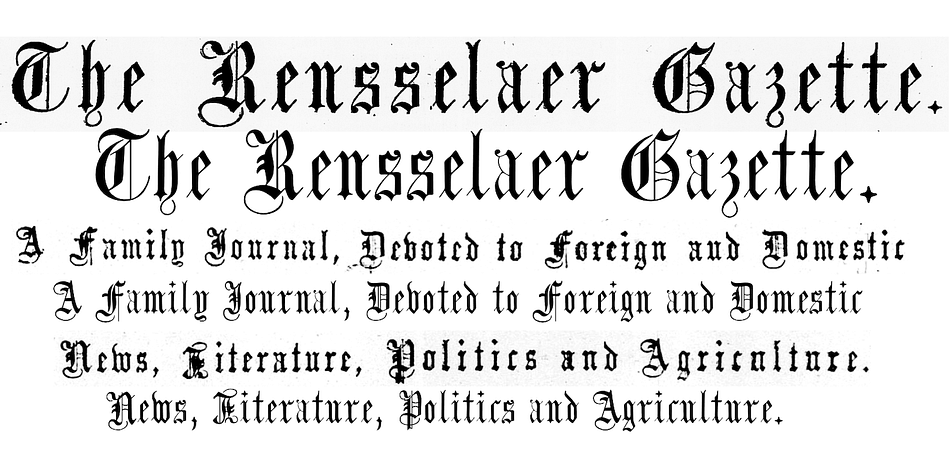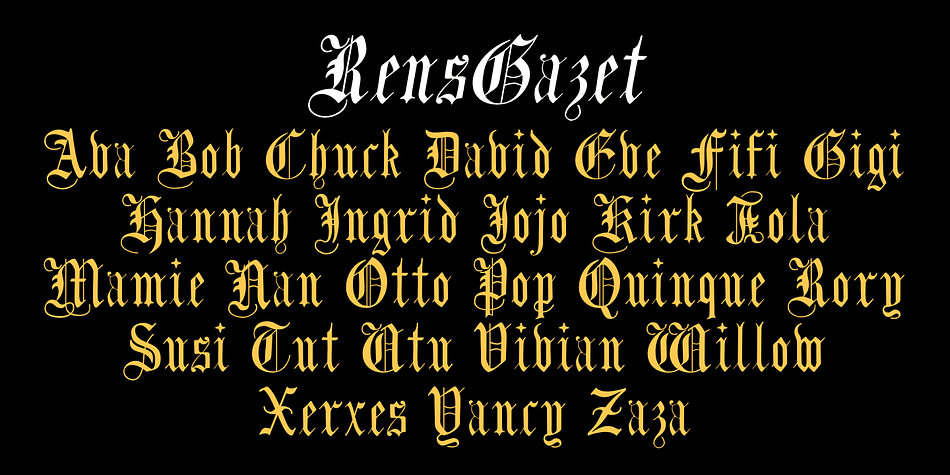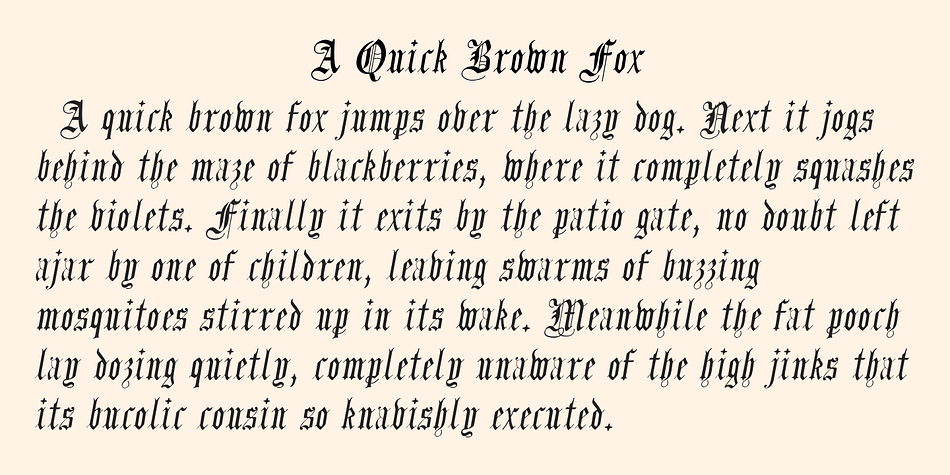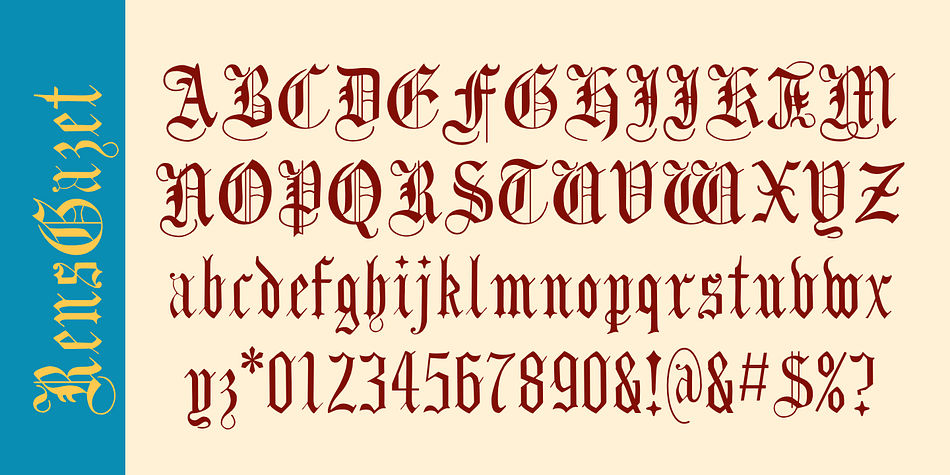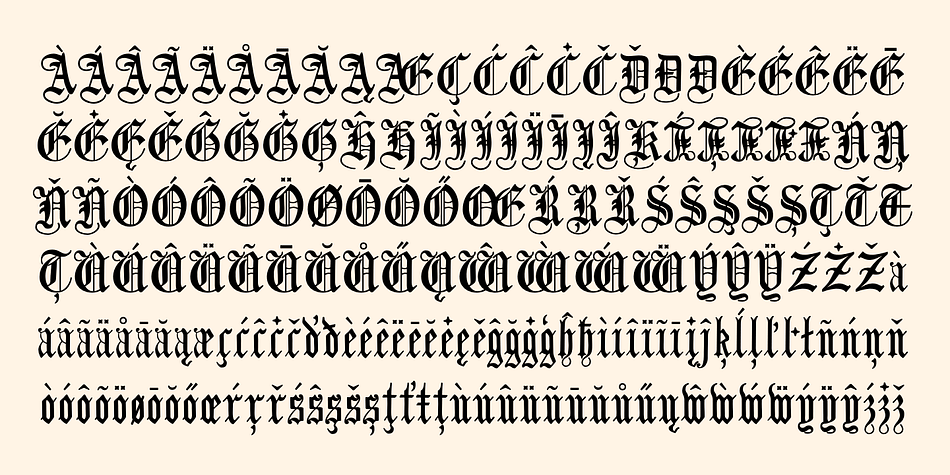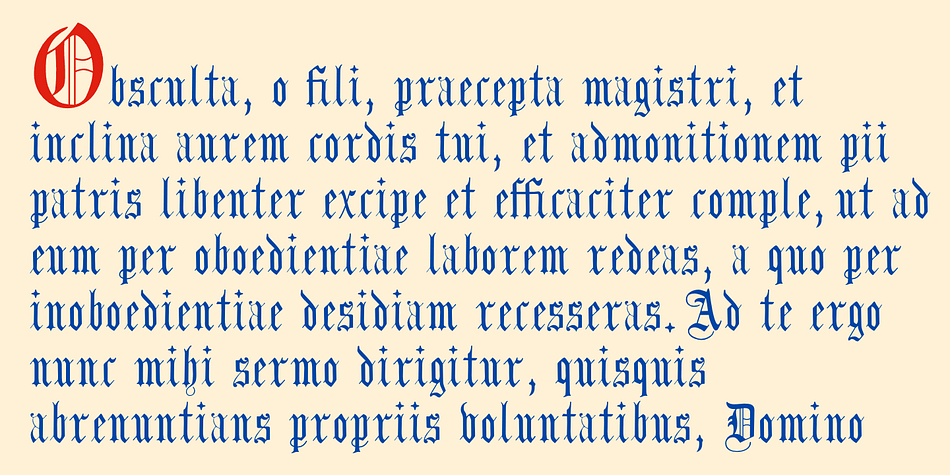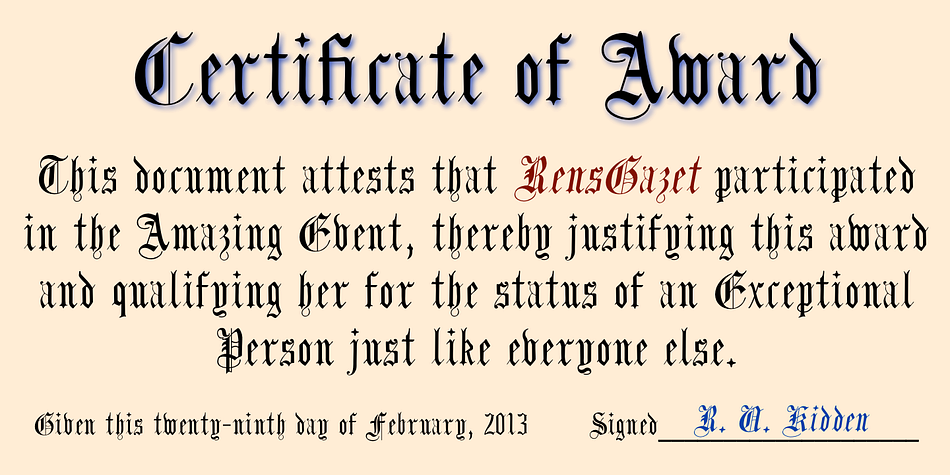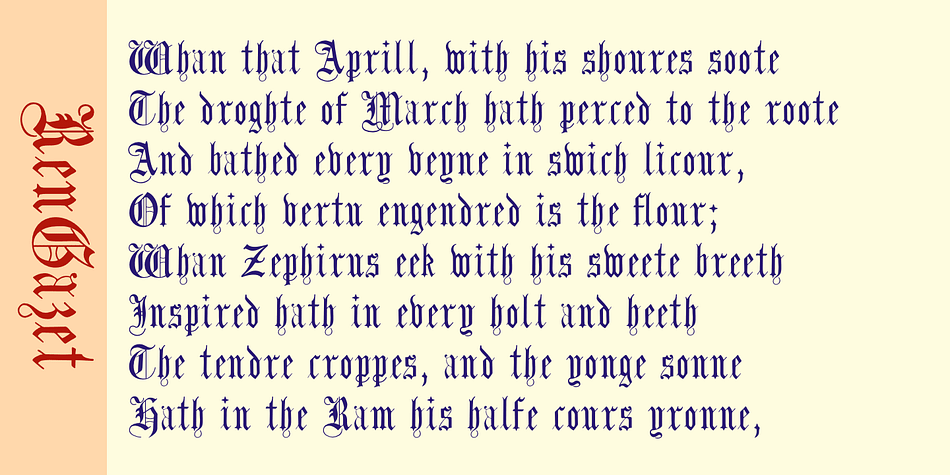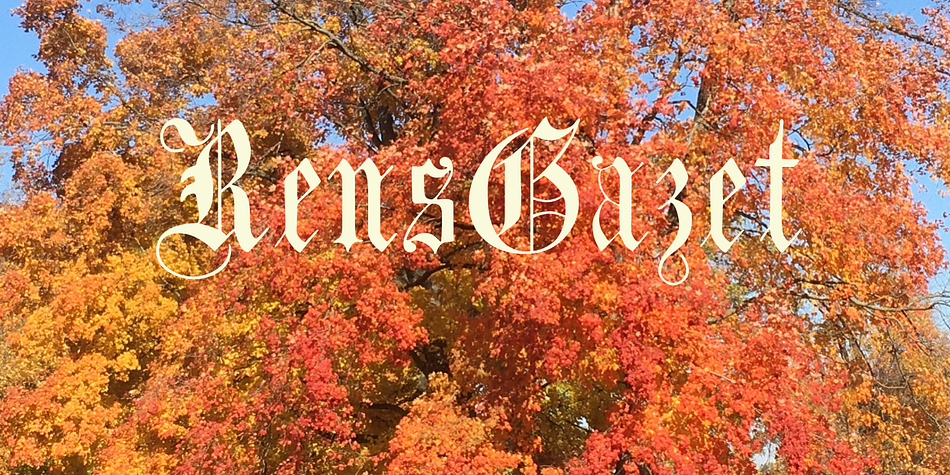
RensGazet
Designed by Robert Schenk, RensGazet is a blackletter font family. This typeface has two styles and was published by Ingrimayne Type.
RensGazet is a decorative blackletter typeface with elaborate upper-case letters and condensed lower-case characters. It was inspired by the masthead of a short-lived weekly newspaper, The Rensselaer Gazette, which was published from 1857 until 1860. I could not find any existing digitized fonts that replicated this old typeface, so I decided to create an interpretation of it. I had samples of few letters in large point sizes and a number of others at a small point size, though these were blurry and not sharply defined. As a result, this typeface is undoubtedly considerably different from the original. Also, my spacing is much tighter than that in the source samples.